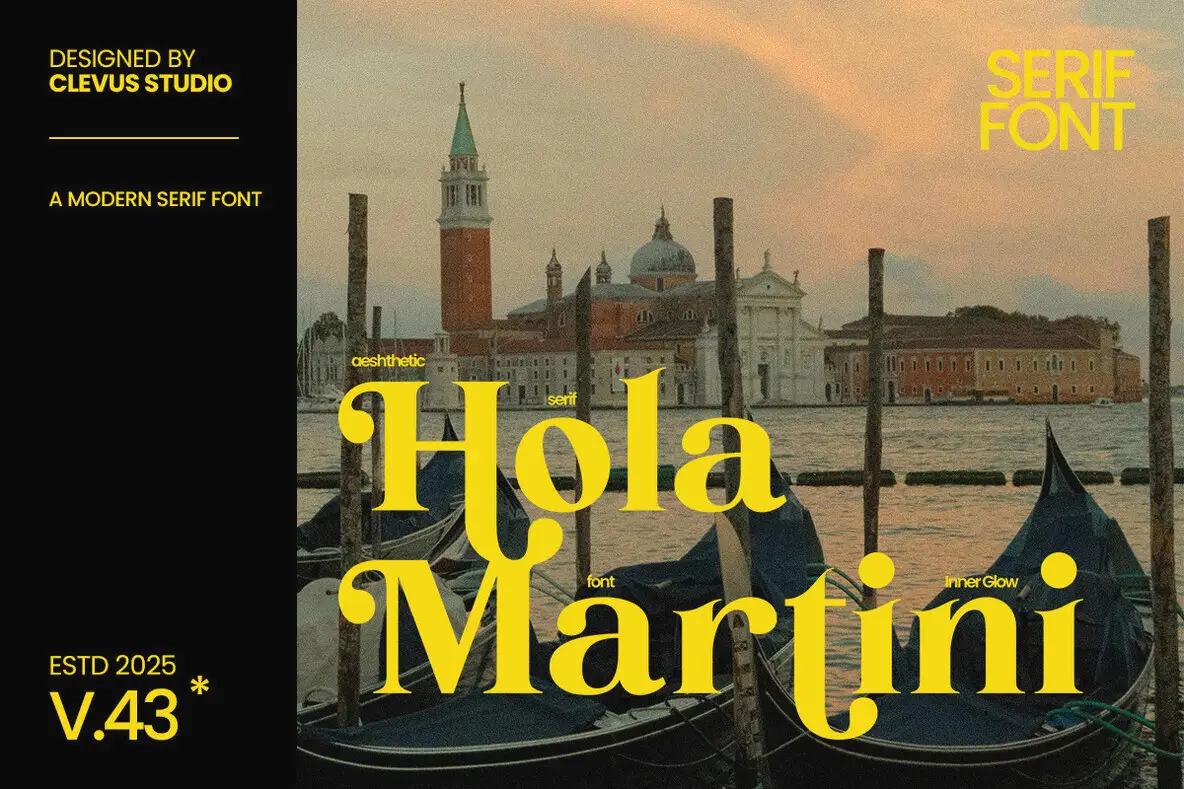
Hola Martini Font
Hola Martini is a distinctive modern serif font that seamlessly blends boldness with playfulness, offering a nostalgic flair to contemporary designs. This versatile typeface is an excellent choice for varied projects, including packaging, advertising, and editorial design, positioning your brand with a sophisticated edge.Hola Martini: Bold Modern Serif With Nostalgic Charm